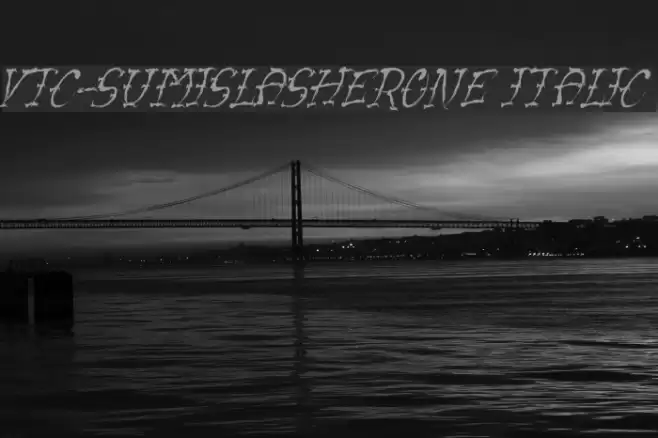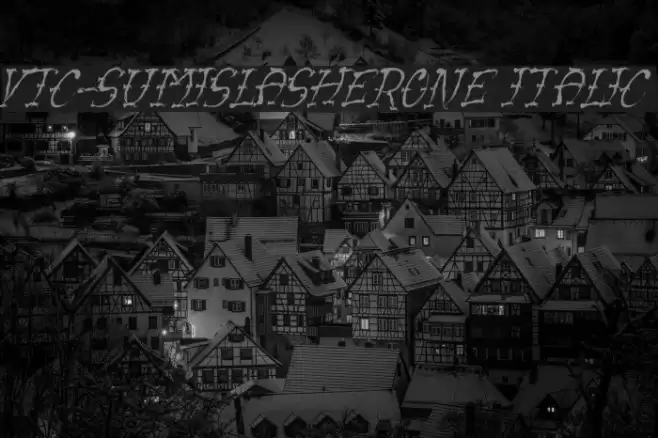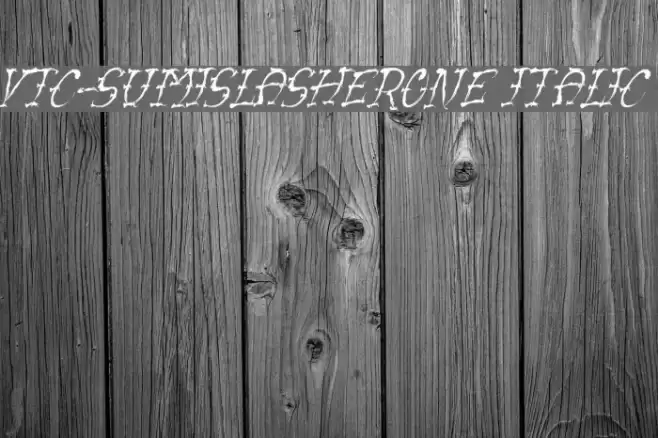
VTC-SumiSlasherOne Italic Font
VTC-SumiSlasherOne Italic Description
This font features a bold and dynamic style with sharp, jagged edges and an aggressive flair. The characters are designed with a high level of detail, incorporating thorn-like extensions that give it a unique, edgy appearance. The italicized slant adds a sense of motion and intensity, making it stand out. The uppercase and lowercase letters maintain a consistent design, with the numbers and special characters following the same aesthetic. The overall look is both artistic and slightly chaotic, perfect for projects that require a dramatic and impactful visual element.
A bold, jagged, and italicized font with thorn-like details and an aggressive style from Uncategorized fonts.
- Proposed Projects: Ideal for horror-themed posters, edgy album covers, or any design needing a dramatic and intense typeface.